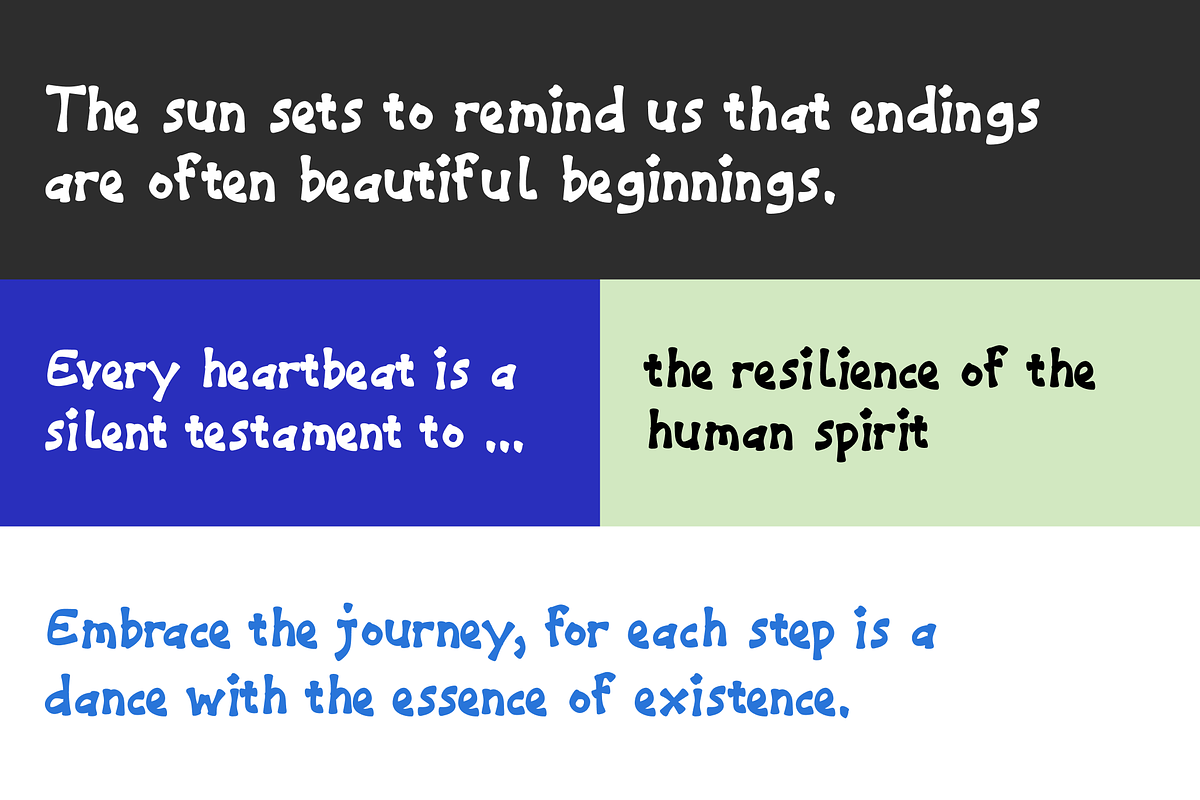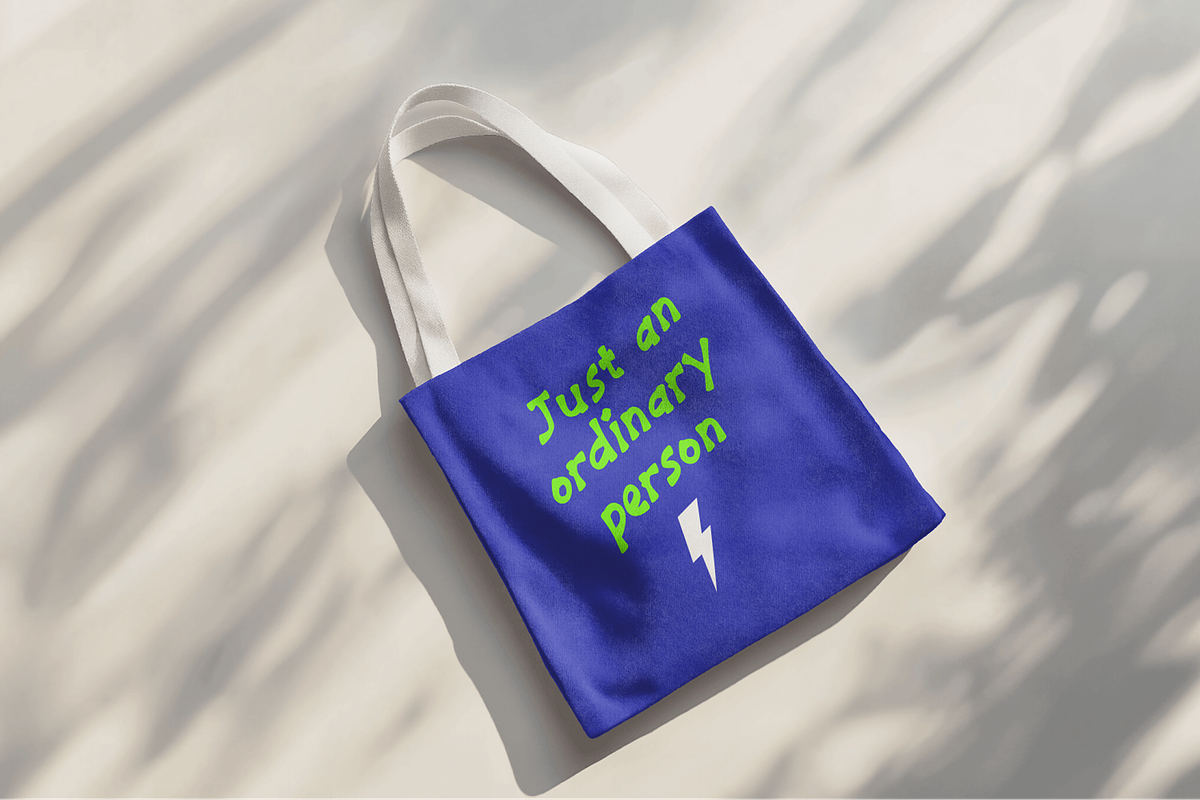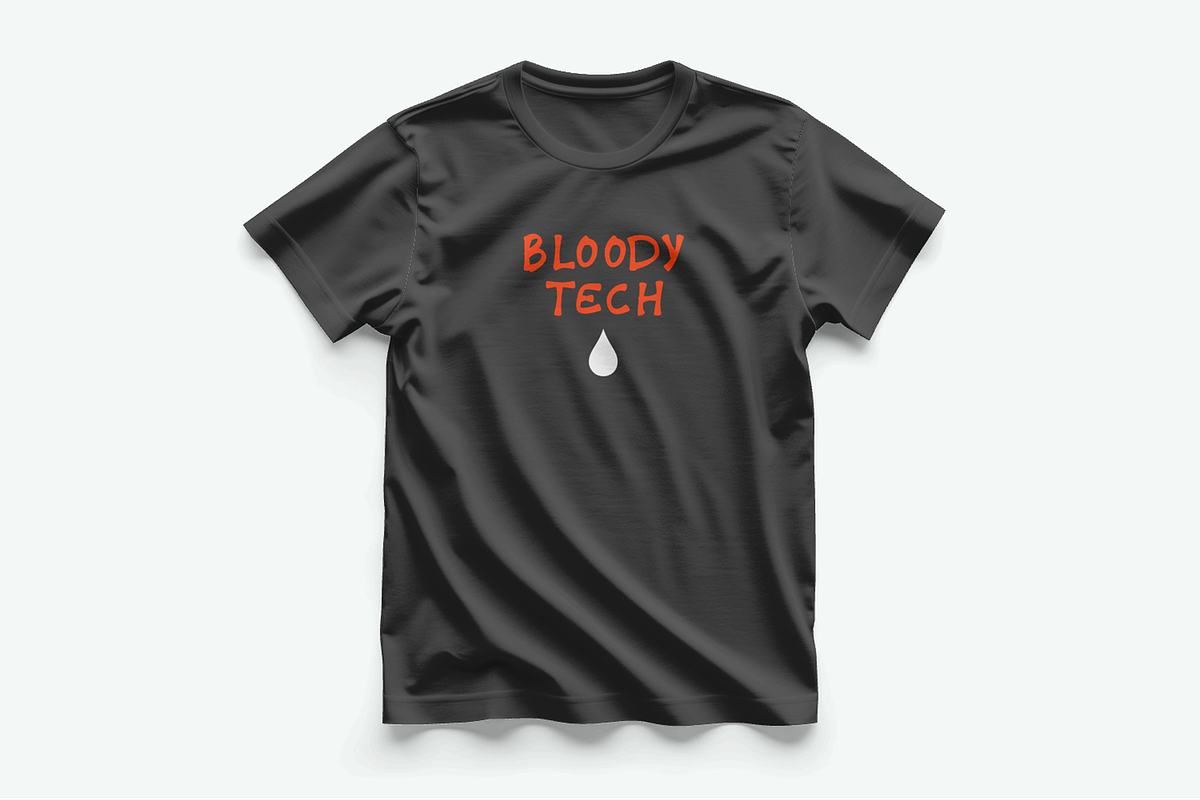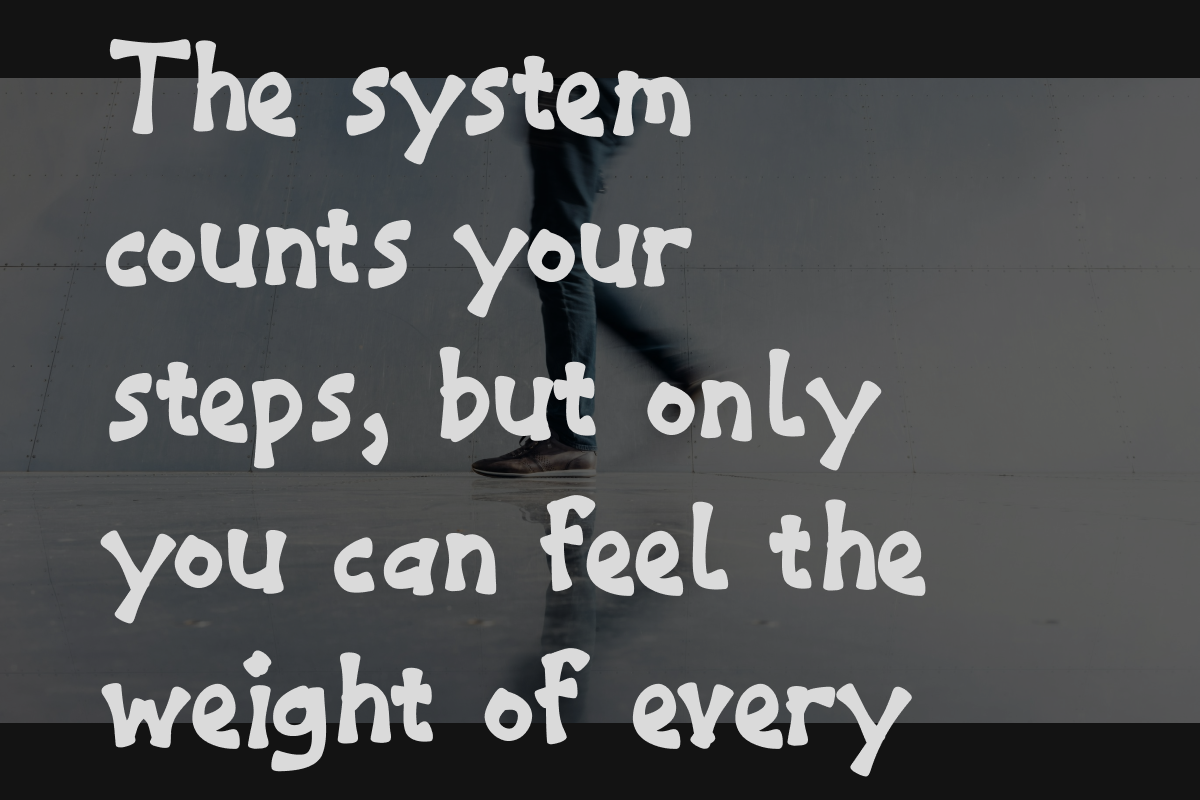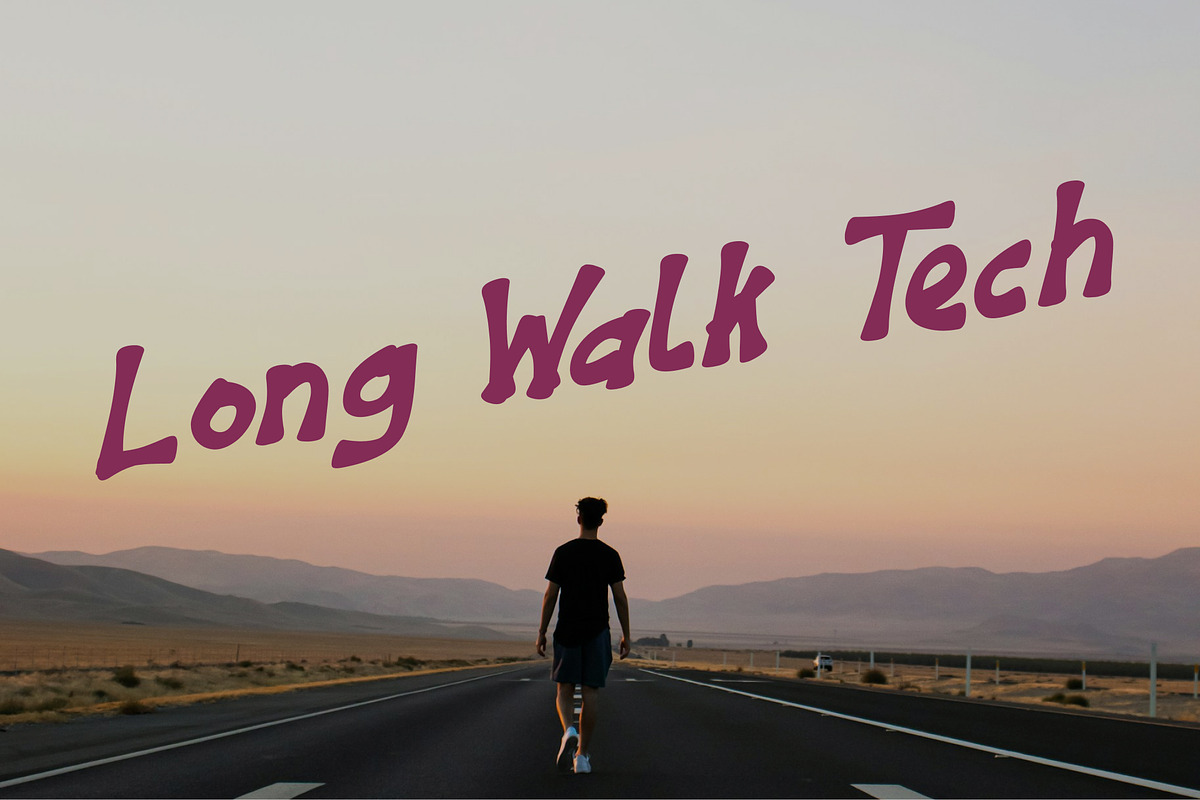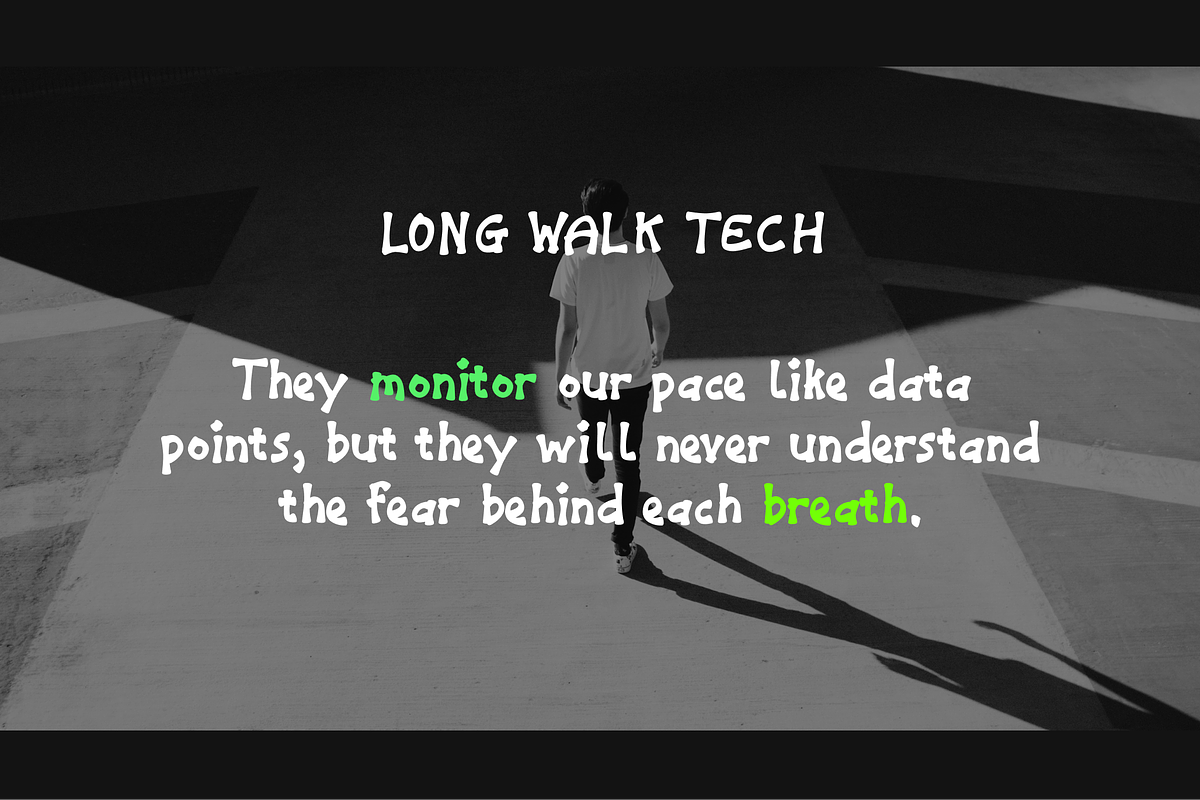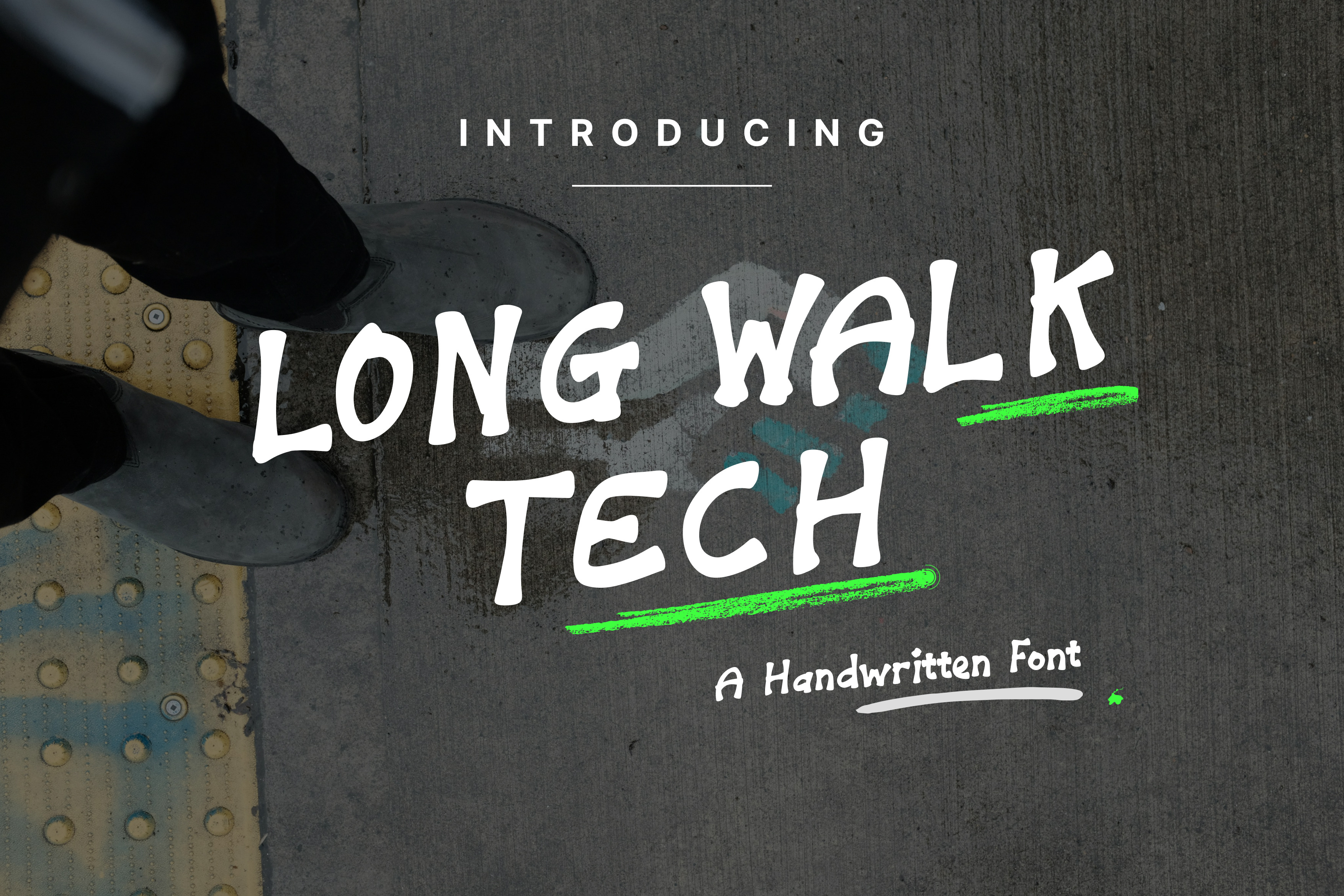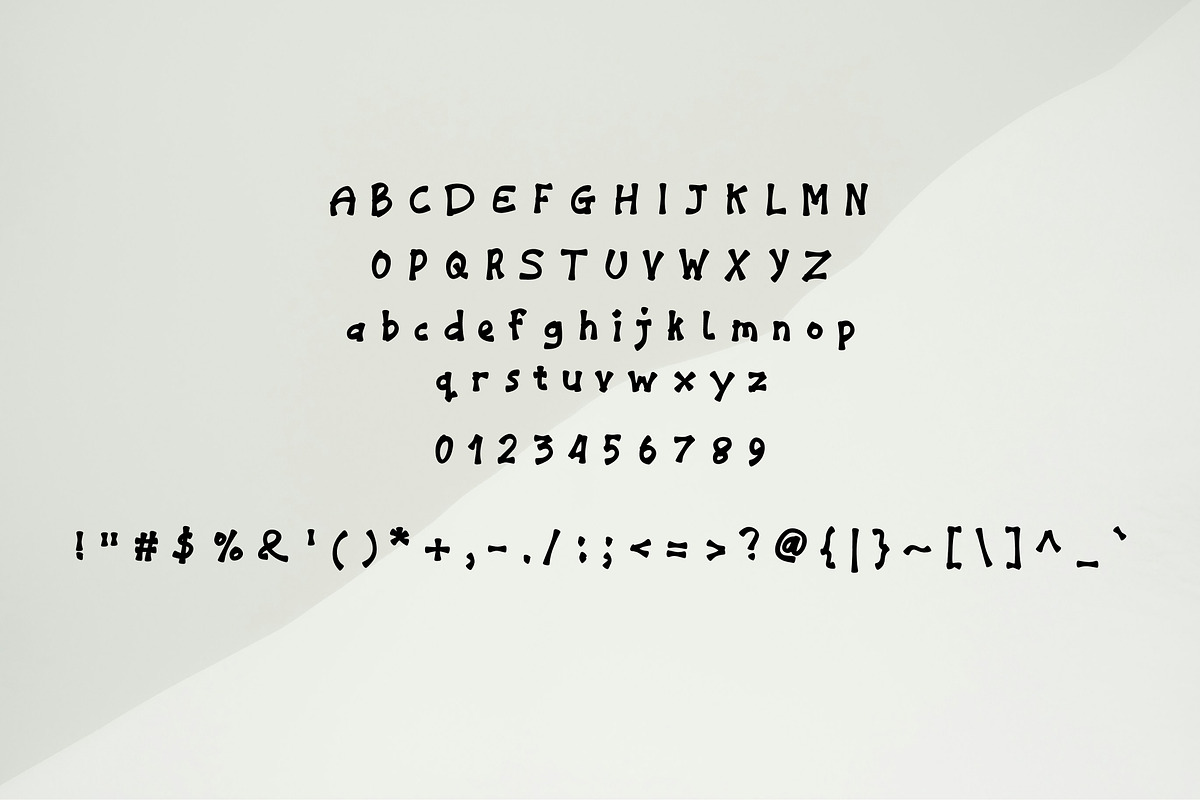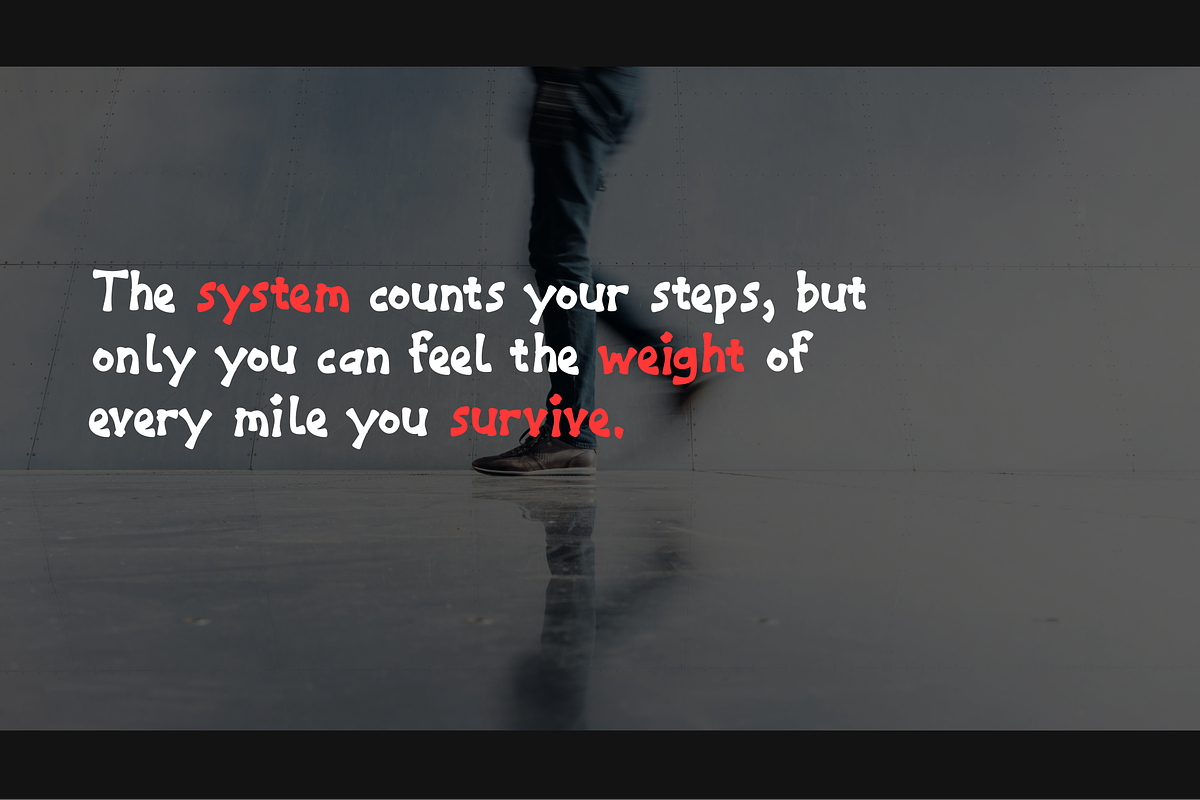
Long Walk Tech - Handwritten Font
Long Walk Tech – Handwritten Font
Long Walk Tech is a handwritten font with a bold, raw, and energetic character. Its strokes feel spontaneous—like fast notes scribbled on a city sidewalk—yet remain clean and highly readable. This font carries an urban, slightly grunge attitude, inspired by the idea of a long journey filled with grit and determination. With its thick, uneven, and expressive letterforms, Long Walk Tech is perfect for designs that aim to look brave, honest, and full of personality.
Whether for posters, book covers, streetwear branding, coffee labels, video titles, or social media graphics, this font adds a strong human touch that stands out effortlessly. Features: Basic Latin A-Z and a-z Number and Punctuation Symbols
Why Long Walk Tech stands out
- Natural, dynamic handwriting style with a rough edge
- Ideal for urban, punk, survival, and emotional quote themes
- Strong presence in large-sized headlines
- Delivers an authentic, spontaneous, and unpolished aesthetic
Long Walk Tech is the right choice when you want your design to reflect long steps, real struggles, and the spirit of pushing forward—no matter the road ahead.